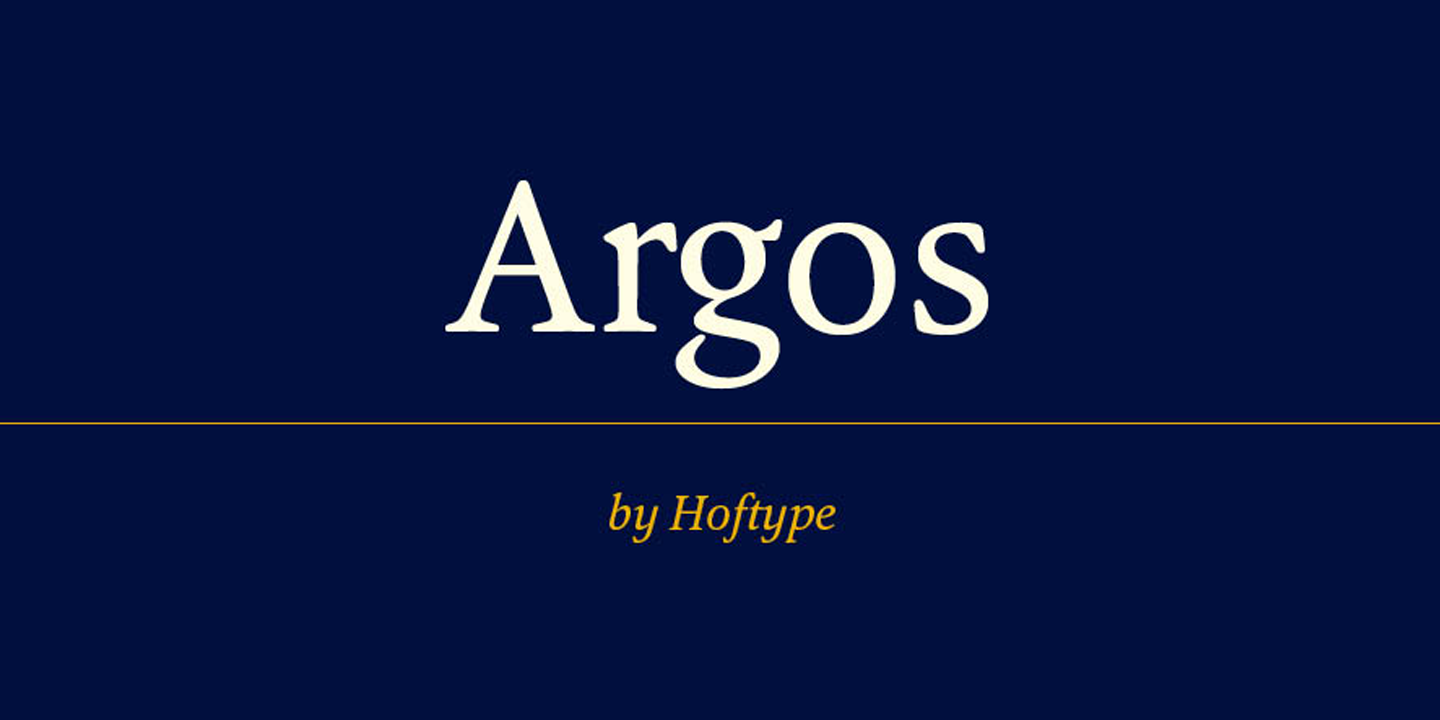
Argos Font is a robust and commanding typeface, often characterized by its strong, geometric, and sometimes slightly condensed forms. It's perfectly suited for projects that demand a powerful visual presence and clear communication, such as corporate branding, impactful advertising, sports-related graphics, and modern editorial designs. Imagine Argos Font dominating a large billboard, providing a clear and authoritative voice for a business presentation, or making a bold statement on a product's packaging. Its strong lines and assertive character ensure your message is not just read, but felt, leaving a lasting impression of reliability and modernity.
What makes Argos Font truly exciting is its exceptional versatility and its ability to maintain high legibility across various applications. This font excels in creating a sense of professionalism and structure, making it ideal for both headlines and shorter bodies of text where clarity and immediate impact are paramount. The meticulous construction of each character, often featuring clean, sharp angles and balanced proportions, contributes to its distinctive and memorable personality. It's more than just a typeface; it's a strategic design tool that helps convey precision, strength, and a contemporary aesthetic. Argos Font stands out for its broad adaptability and its capacity to elevate any design with its understated yet profound visual presence.
Argos Font typically comes with a comprehensive family to provide extensive flexibility for diverse design applications. This usually includes a range of weights such as light, regular, medium, semi-bold, and bold, often accompanied by corresponding italic or oblique versions. Some families might also offer condensed or extended styles, along with a variety of ligatures, further enhancing its typographic possibilities. This extensive Argos Font Free Download family ensures you have all the tools necessary to create cohesive and dynamic designs, allowing for consistent branding and powerful visual communication across all your platforms, from digital interfaces to print media.